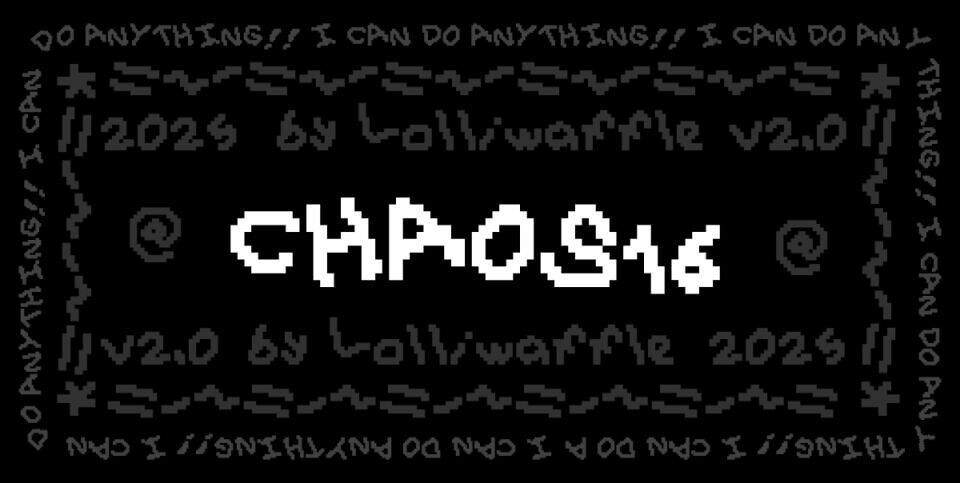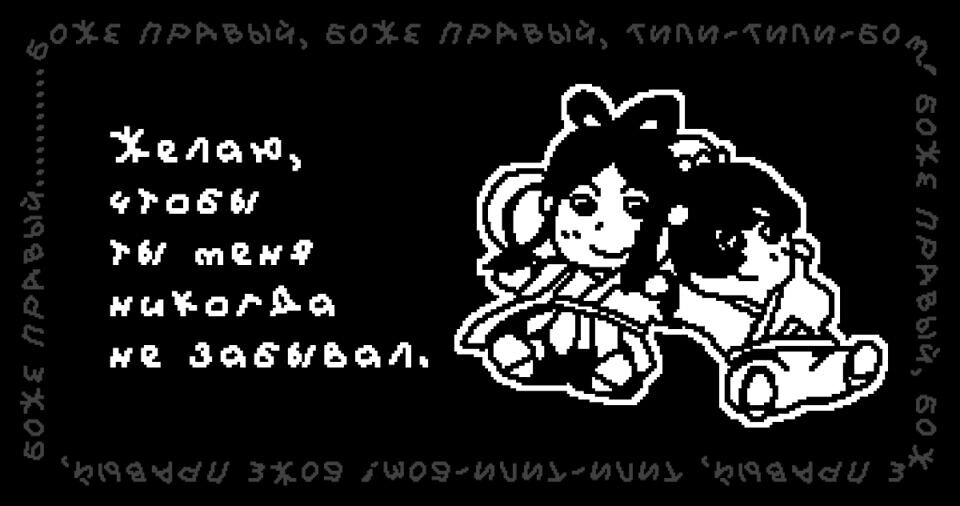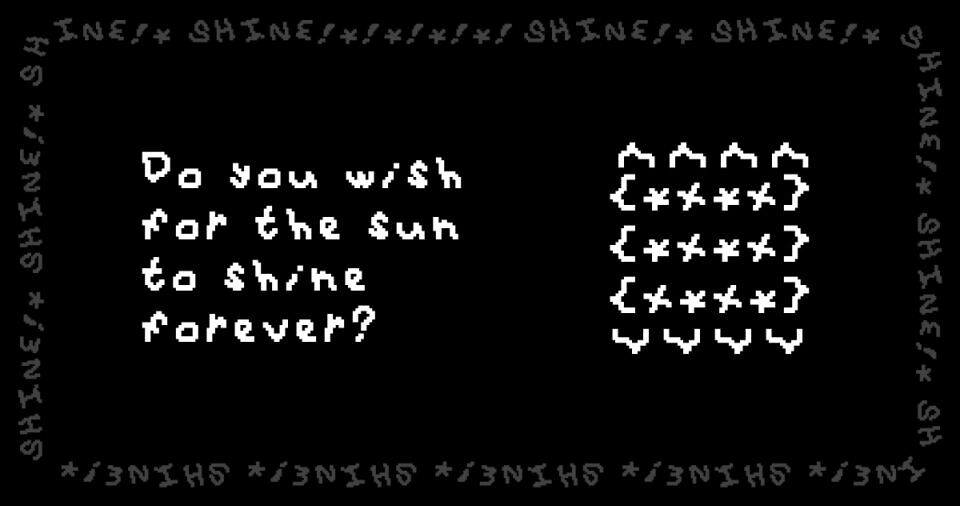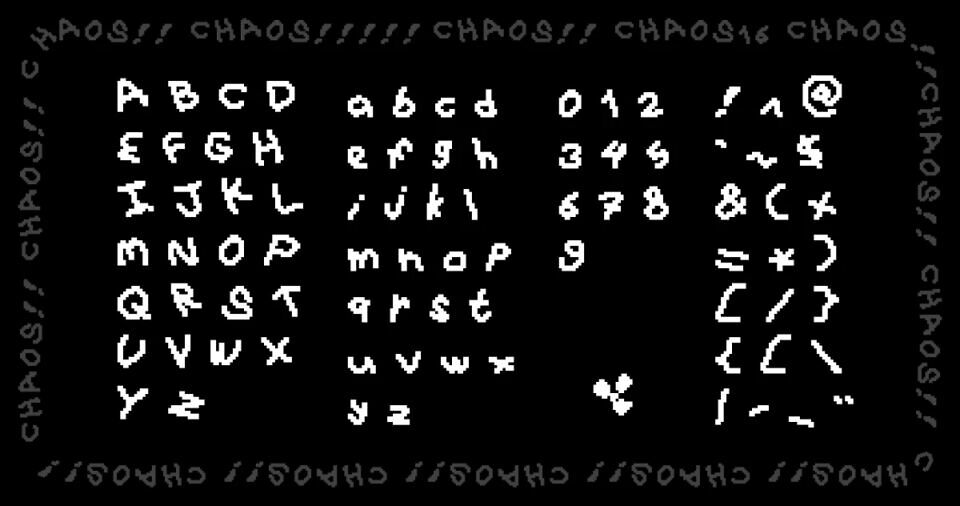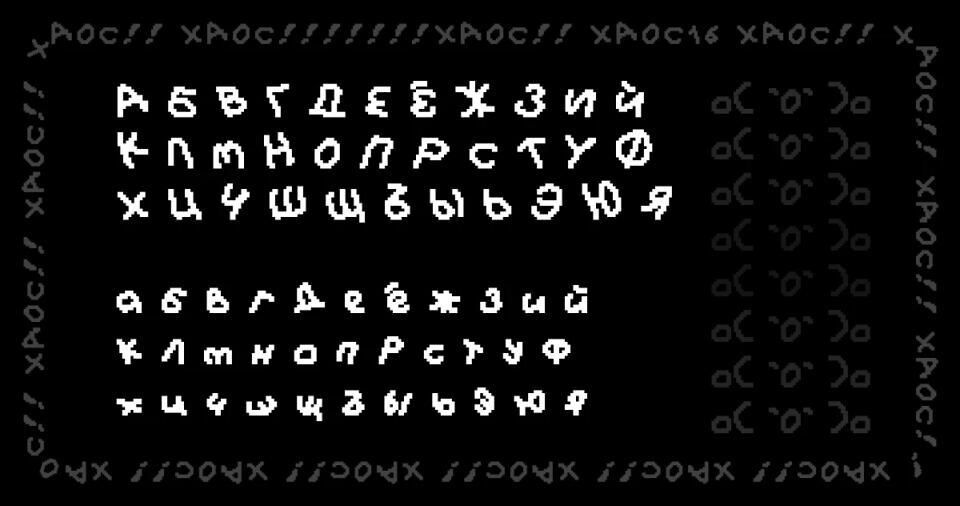
Chaos16 is a 16×16 pixel font with a unique, rough-edged aesthetic. Its letters, numbers, and symbols appear blocky and slightly irregular, giving them a hand-drawn, chaotic quality.
The typeface supports both the English and Russian languages, including full uppercase and lowercase alphabets. This distinctive style makes it suitable for titles, digital art, or any project aiming for a retro, glitch, or game-like feel.